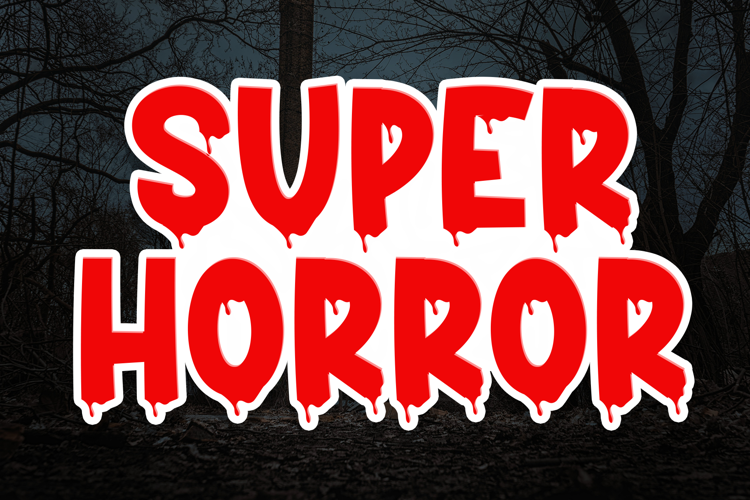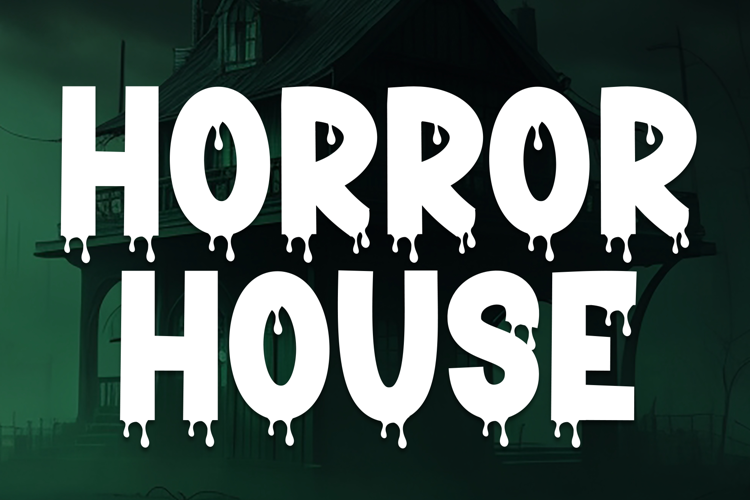
Horror Halloween Lettering Font Splatter Blood ABC OTF Type
The Horror Halloween Splatter Font is a chilling, hand-crafted typeface designed to bring a visceral and macabre energy to your spooky season projects. Featuring aggressive, sharp letterforms drenched in realistic blood spatters and ink droplets, this font is the ultimate choice for designers working on horror movie posters, haunted house signage, true crime podcast branding, and gritty Halloween event invitations.
Available in both OTF and TTF formats, the font maintains a jagged, unsettling silhouette that remains legible while delivering maximum atmospheric impact. Whether you are creating a "Warning" sign for a fright fest or designing edgy apparel for the October season, this blood-spattered typeface ensures your message is both seen and feared.
Why Your Designs Will Stand Out
Visceral Splatter Detail: Every character is uniquely distressed with ink blots and blood-like sprays, saving you the time of adding manual textures to your typography.
Total Versatility: Includes a full set of uppercase letters, numerals, and essential punctuation, all designed with the same terrifying consistency.
High-Impact Silhouette: The sharp, hand-drawn edges are optimized for bold headers, making it perfect for high-contrast red and black color schemes.